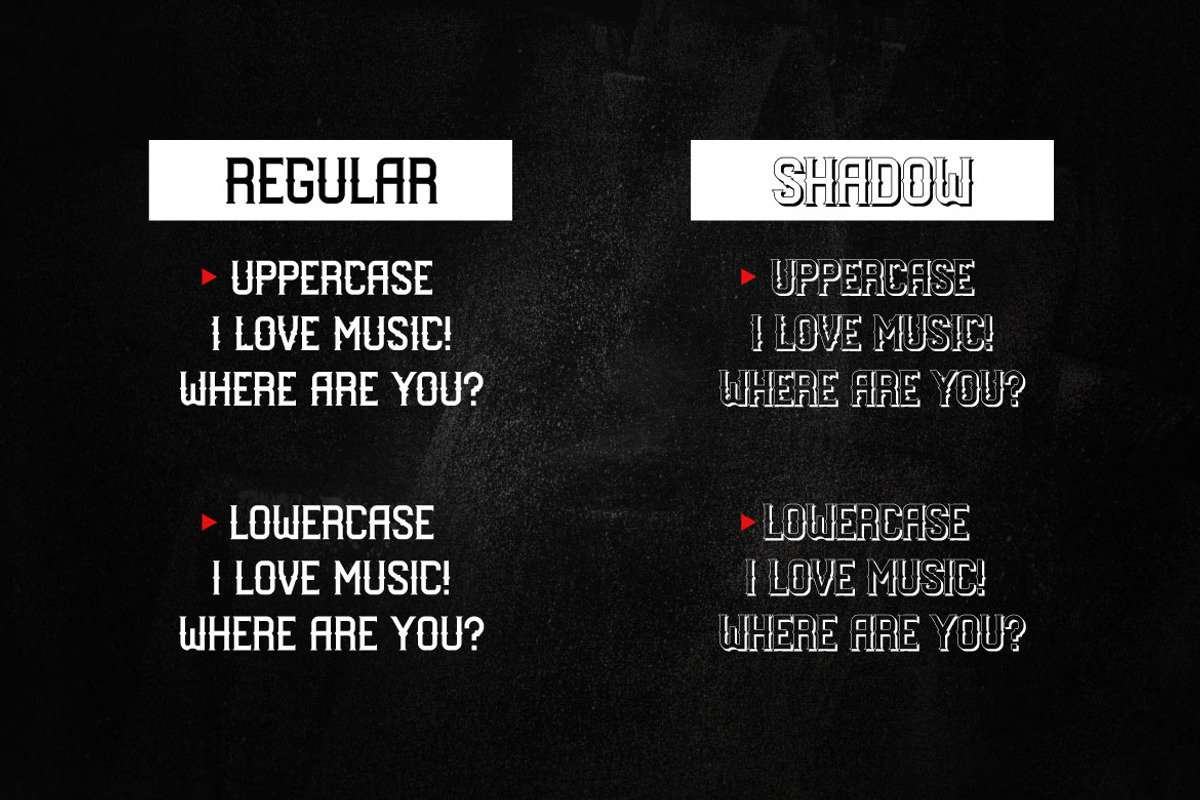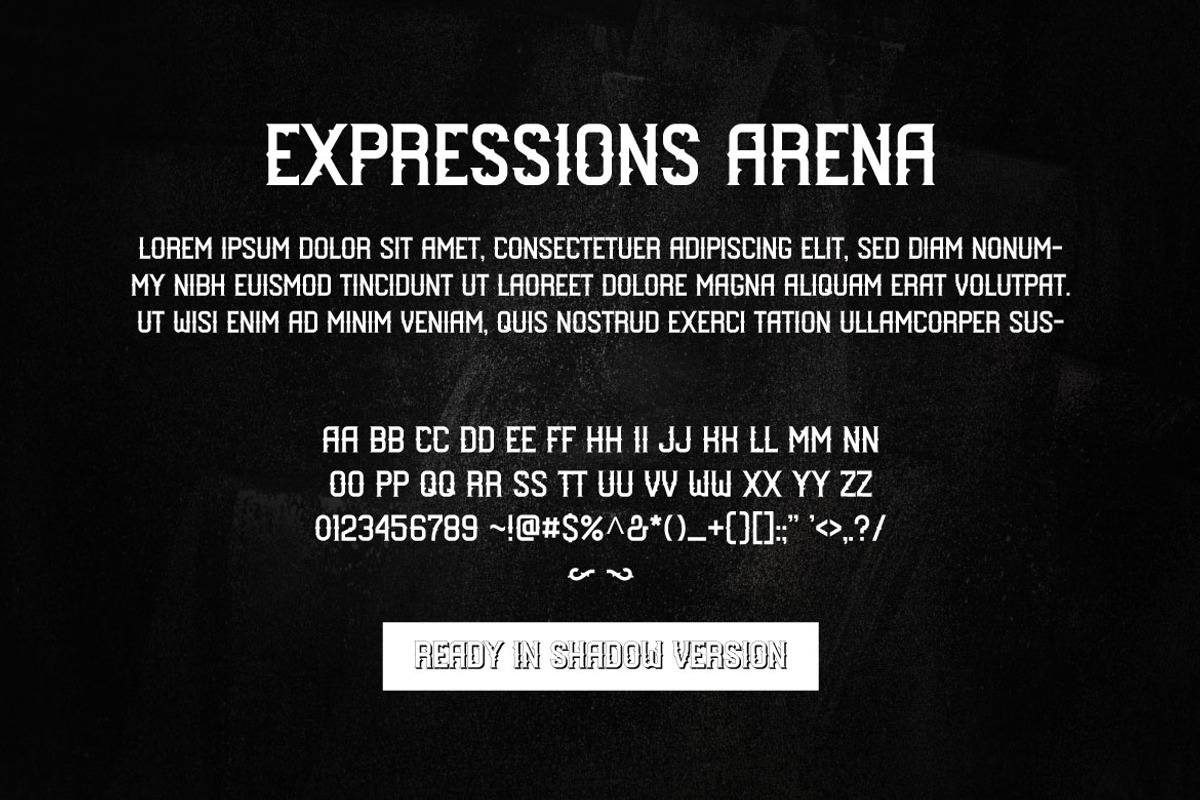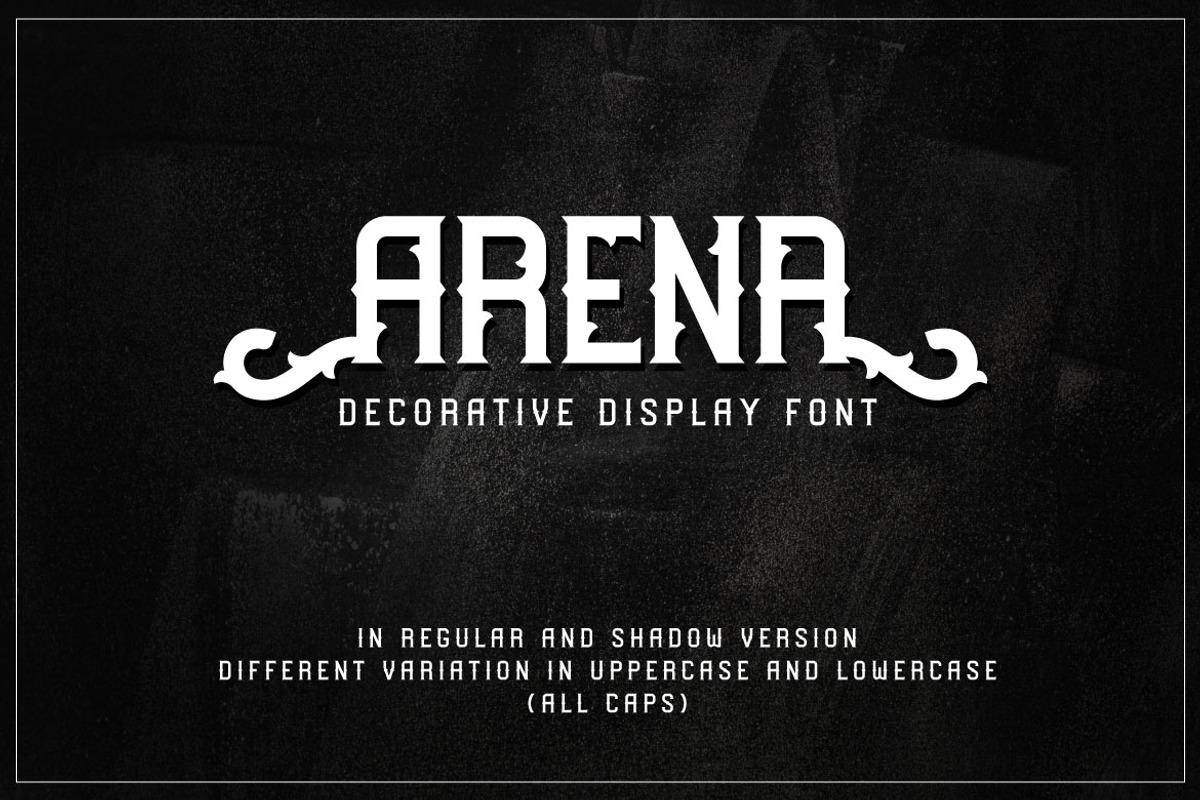
Arena - Decorative Display Font
We're proudly present to you ARENA The blackletter decorative font that suitable for any purpose. You can use this font in poster, music cover, book cover, title, headline, card, logo, magazine, banner, or even large-scale artwork. ARENA has regular and shadow versions. This font is all capital. For the uppercase version, there will be little ornament in the each alphabet.